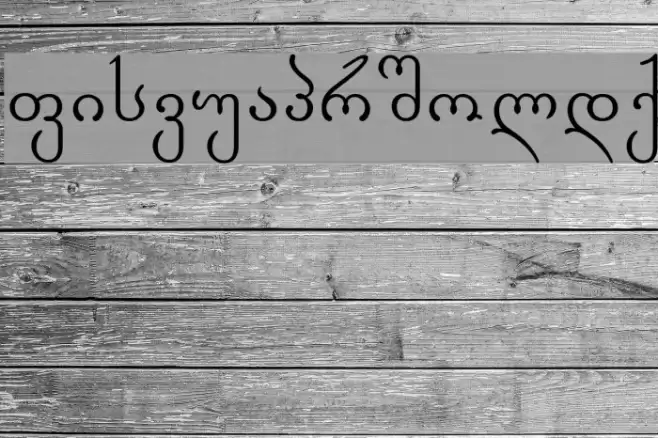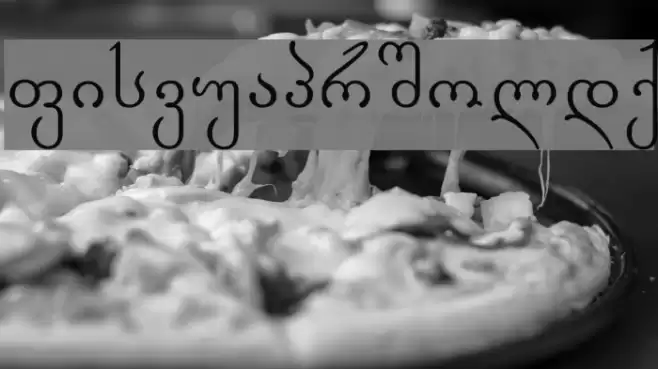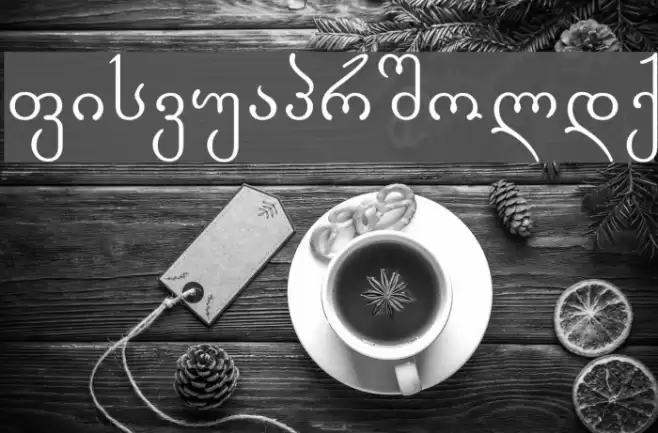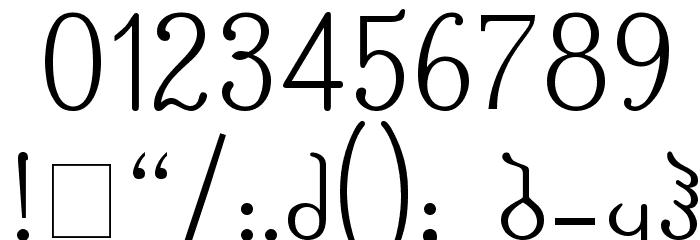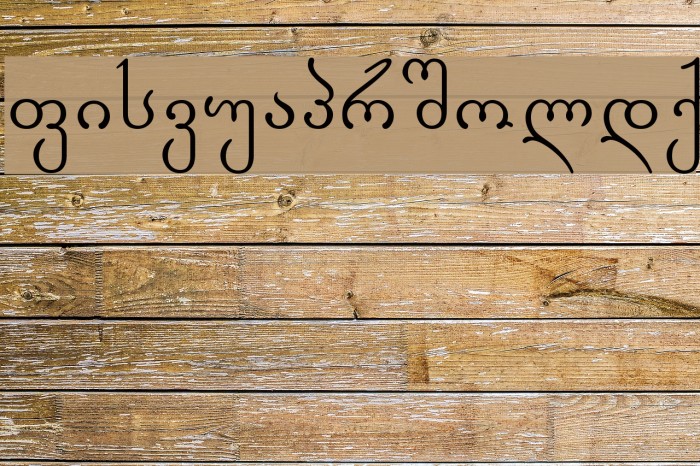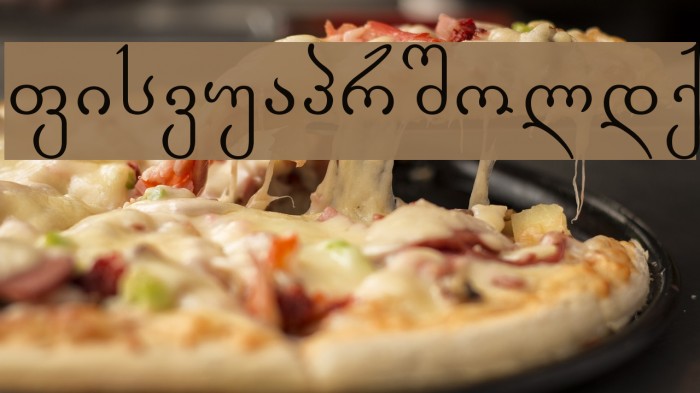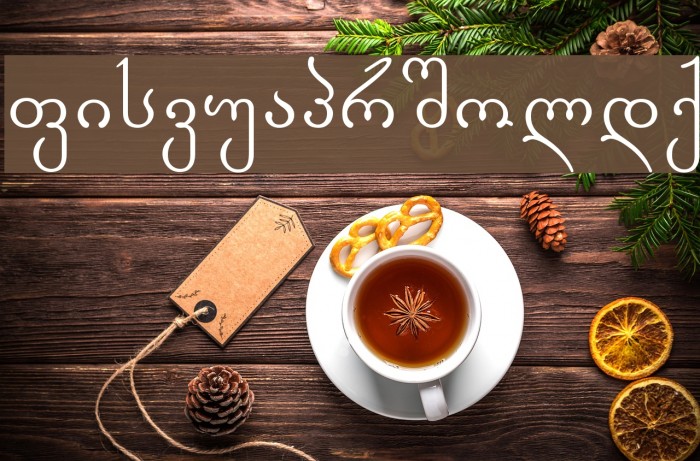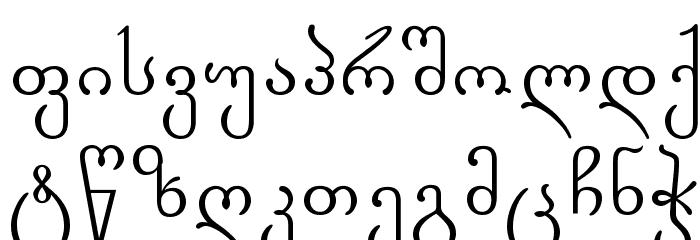
Gorda-ITV Font
Gorda-ITV Description
A rounded, playful typeface with a handwritten, script-like appearance. The characters are monolinear with consistent stroke thickness, featuring large counters and open forms. The numerals and punctuation are clear and legible, while the overall style is informal and friendly.
A rounded, handwritten-style font with playful curves and open forms from Uncategorized fonts.
- Proposed Projects: Children’s books, greeting cards, informal branding, playful posters, educational materials.
- Overall Style: Playful, Informal, Handwritten
- Use Case: Logos, Posters, Greeting cards, Educational materials